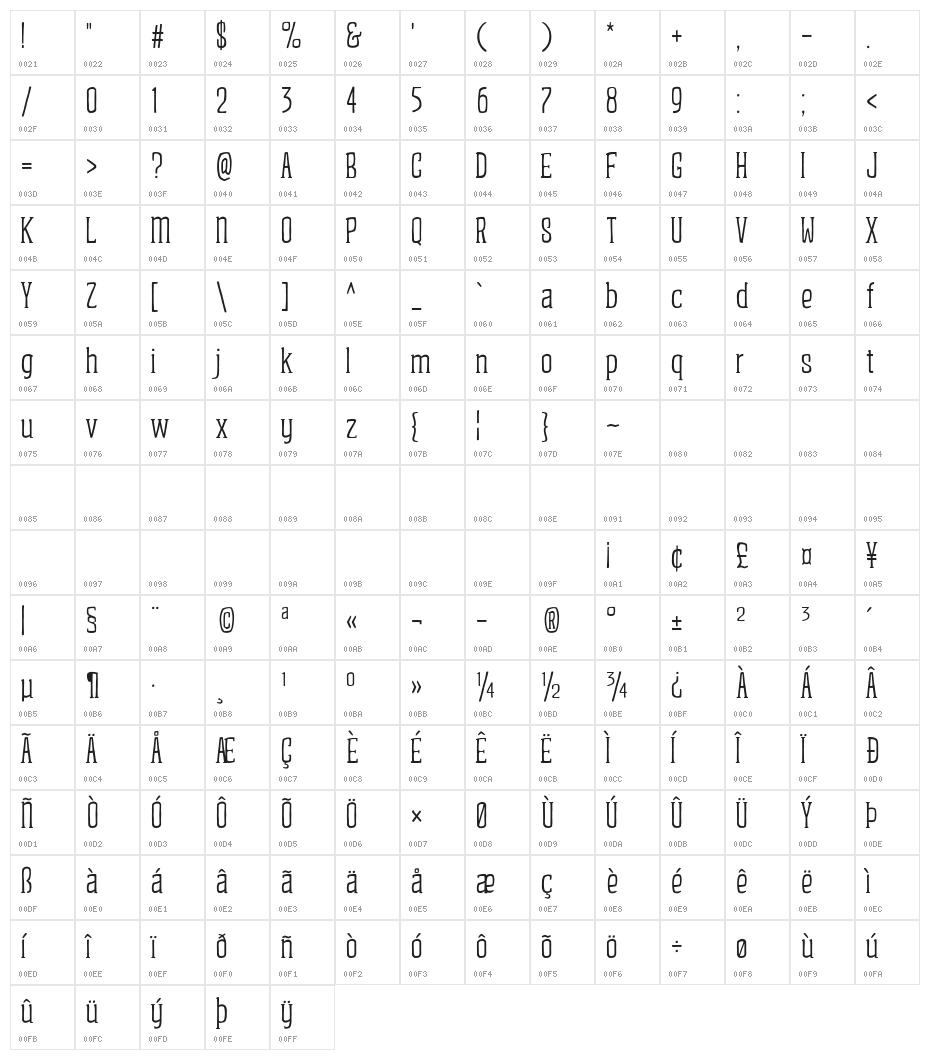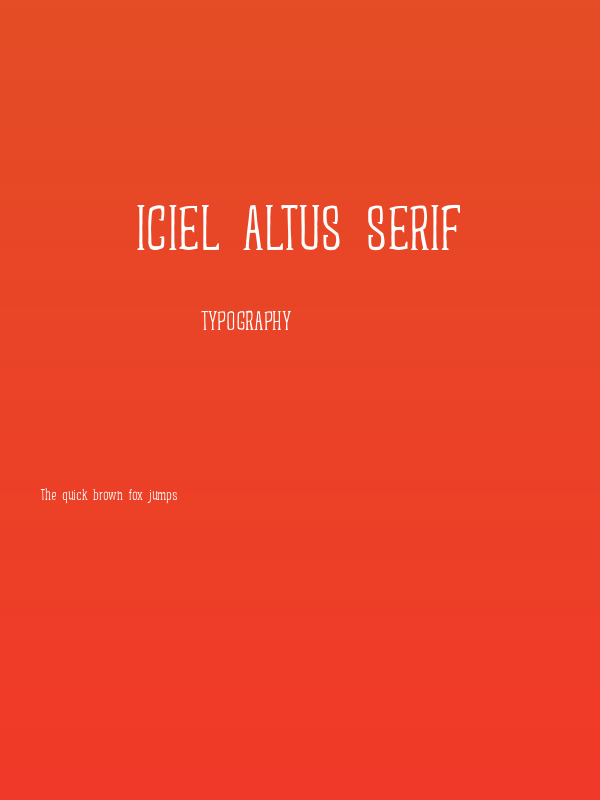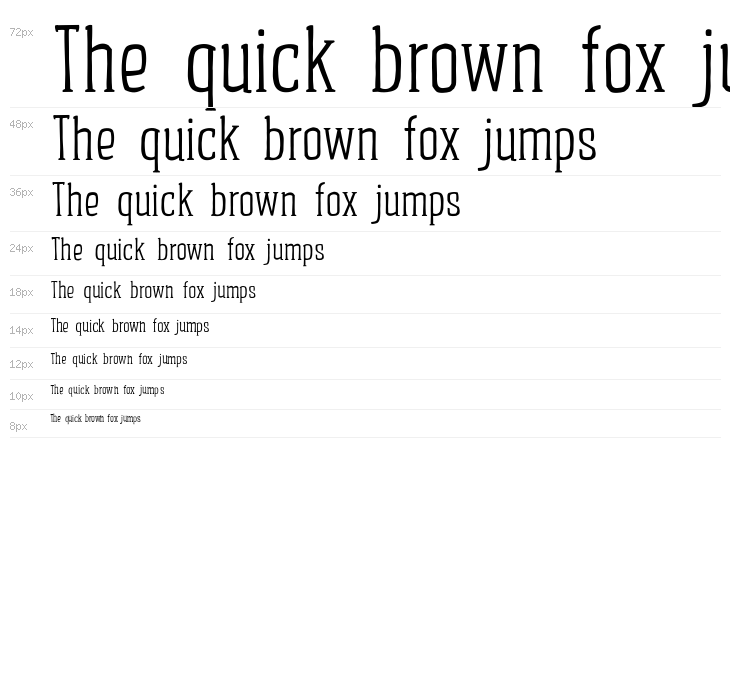
iCiel Altus Serif Font
iCiel Altus Serif Description
This font features a distinctive serif style with elongated and slightly curved strokes, giving it a unique and elegant appearance. The uppercase letters are tall and narrow, while the lowercase letters maintain a consistent height, contributing to a cohesive look. The numerals are clear and well-defined, ensuring readability. Special characters are designed with the same attention to detail, making them blend seamlessly with the rest of the font. The overall design is modern yet retains a classic touch, making it versatile for various applications.
| Proposed Projects | Ideal for branding, editorial design, book covers, and elegant invitations. |